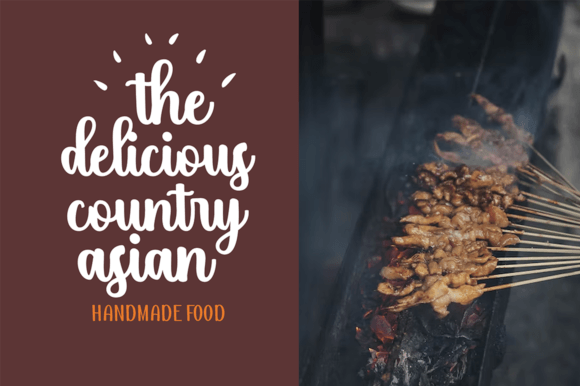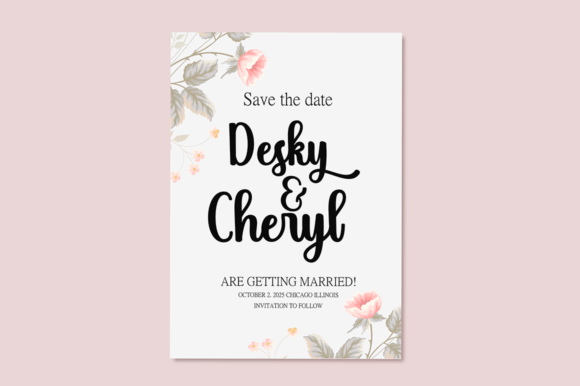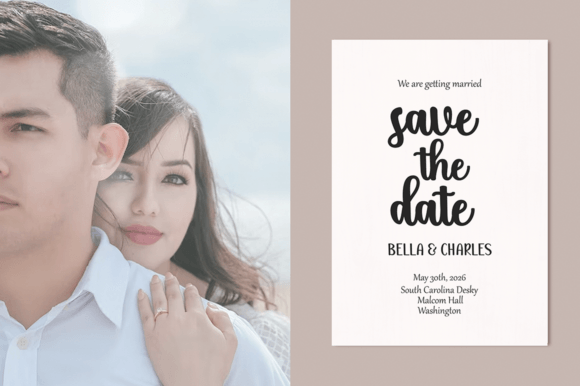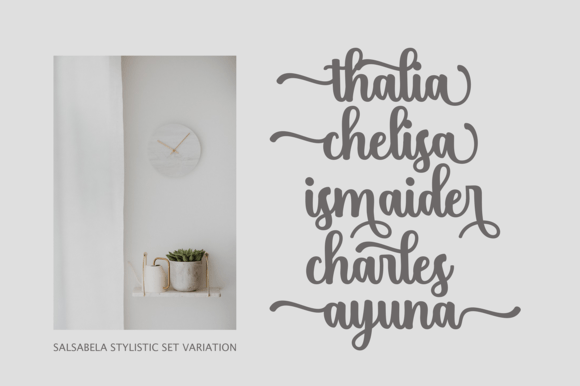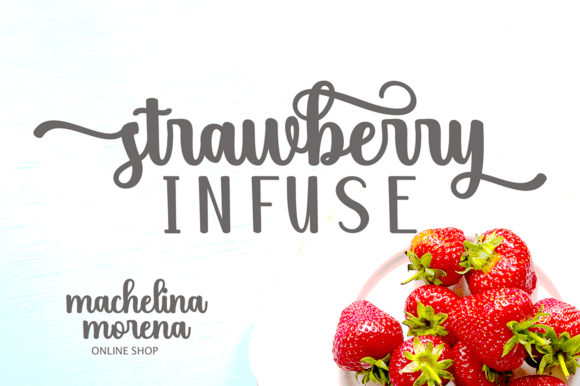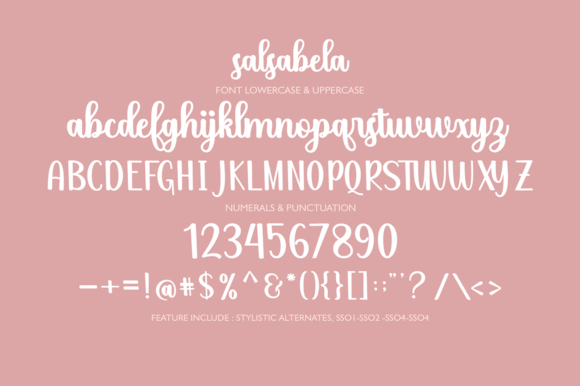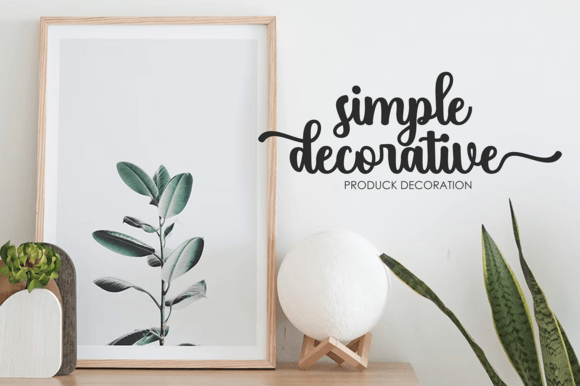
Salsabela Script Font
About Salsabela Script Font
**”Salsabela Script”** is a romantic and sweet calligraphy typeface that adds a touch of luxury and elegance to your design projects. The characters in this font gracefully dance along the baseline, creating a sense of fluidity and beauty that enhances any creative endeavor.
The romantic and sweet nature of **”Salsabela Script”** makes it a versatile choice for a variety of design projects. Whether you’re working on wedding invitations, thank you cards, branding, packaging, or any other creative endeavor, this font brings a sense of charm and sophistication to your work.
In wedding invitations, **”Salsabela Script”** adds a touch of romance and elegance. The font’s calligraphy style enhances the overall aesthetics of invitation designs, creating a sense of enchantment and anticipation for the special day.
Thank you cards designed with **”Salsabela Script”** exude a sense of gratitude and charm. The font’s graceful appearance adds a personal and heartfelt touch to your messages, making them more meaningful to recipients.
Branding and packaging benefit from the elegant aesthetics of **”Salsabela Script.”** It can be used to create typography that not only looks visually attractive but also aligns with the luxury branding of products.
In summary, **”Salsabela Script”** is a romantic and sweet calligraphy typeface that adds a touch of luxury and sophistication to your design projects. Its versatility and charm make it a valuable choice for wedding invitations, thank you cards, branding, packaging, and any project where a sense of romance and elegance is desired.